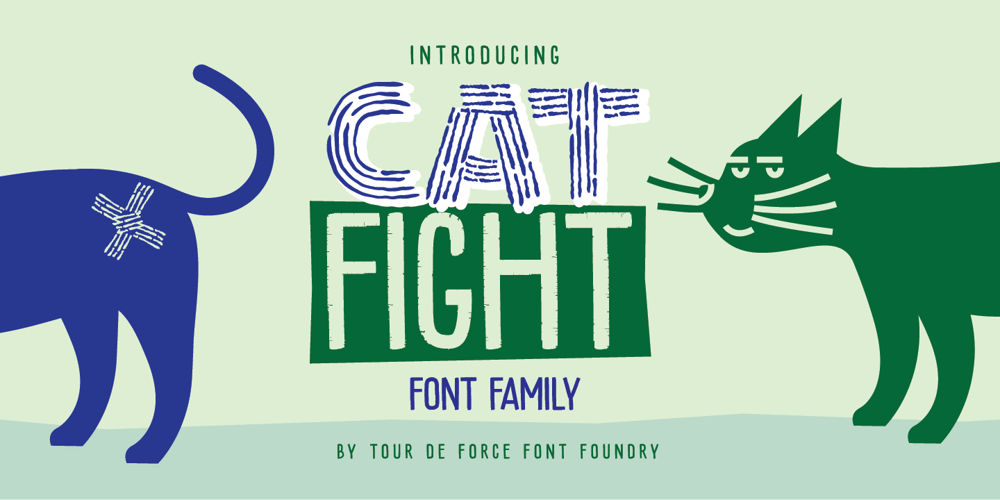
Cat Fight Font Family was designed by Dusan Jelesijevic and published by Tour De Force. Cat Fight contains 2 styles and family package options. Cat Fight is small decorative font family containing two “weights”. They are not weights in actual meaning, as they differ by style but to secure safe OTF usage in all OS, they are named as Regular and Bold.Cat Fight is ideal for lively and cheerful usages on posters, packages, labels, website titles, book covers and other similar situations.